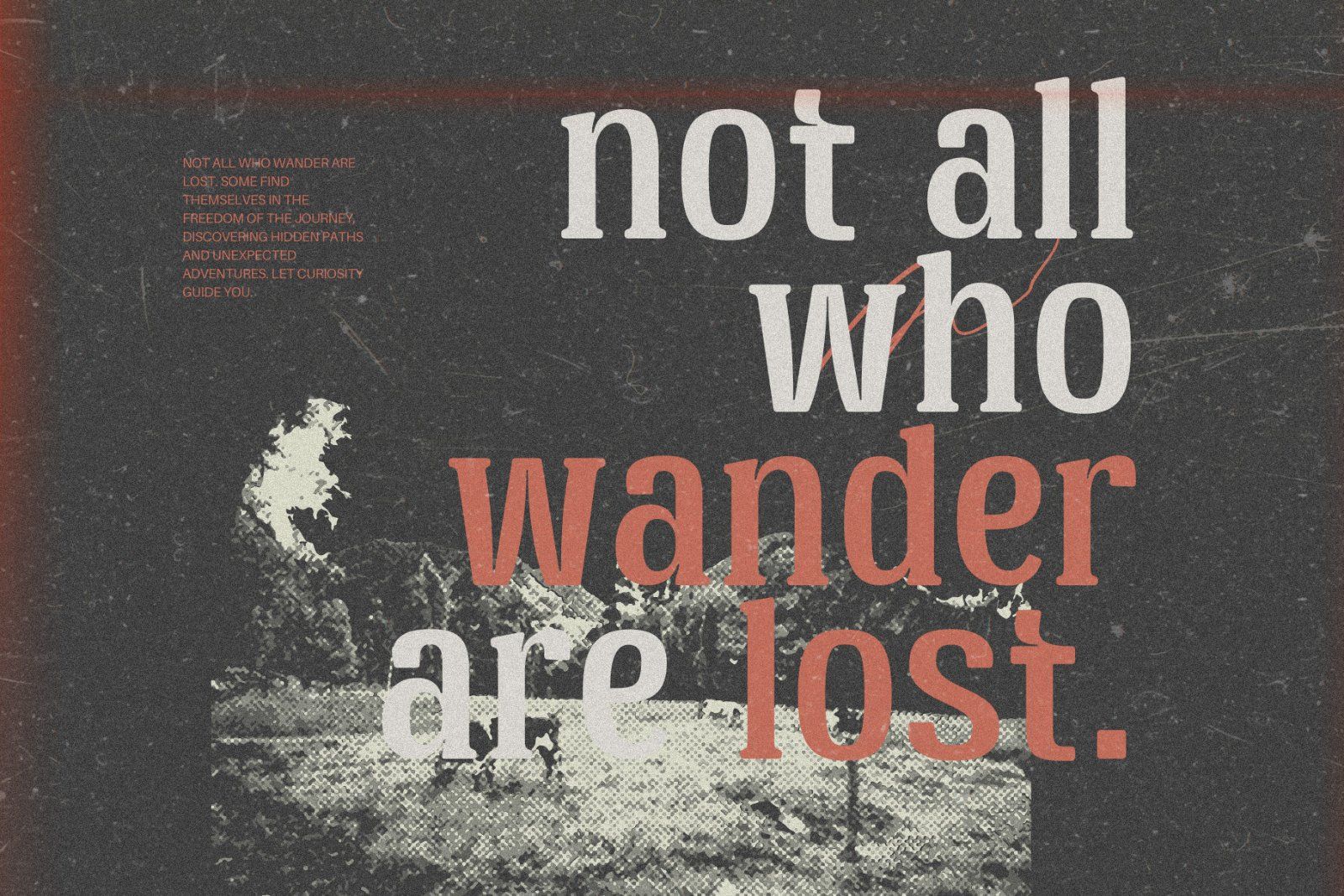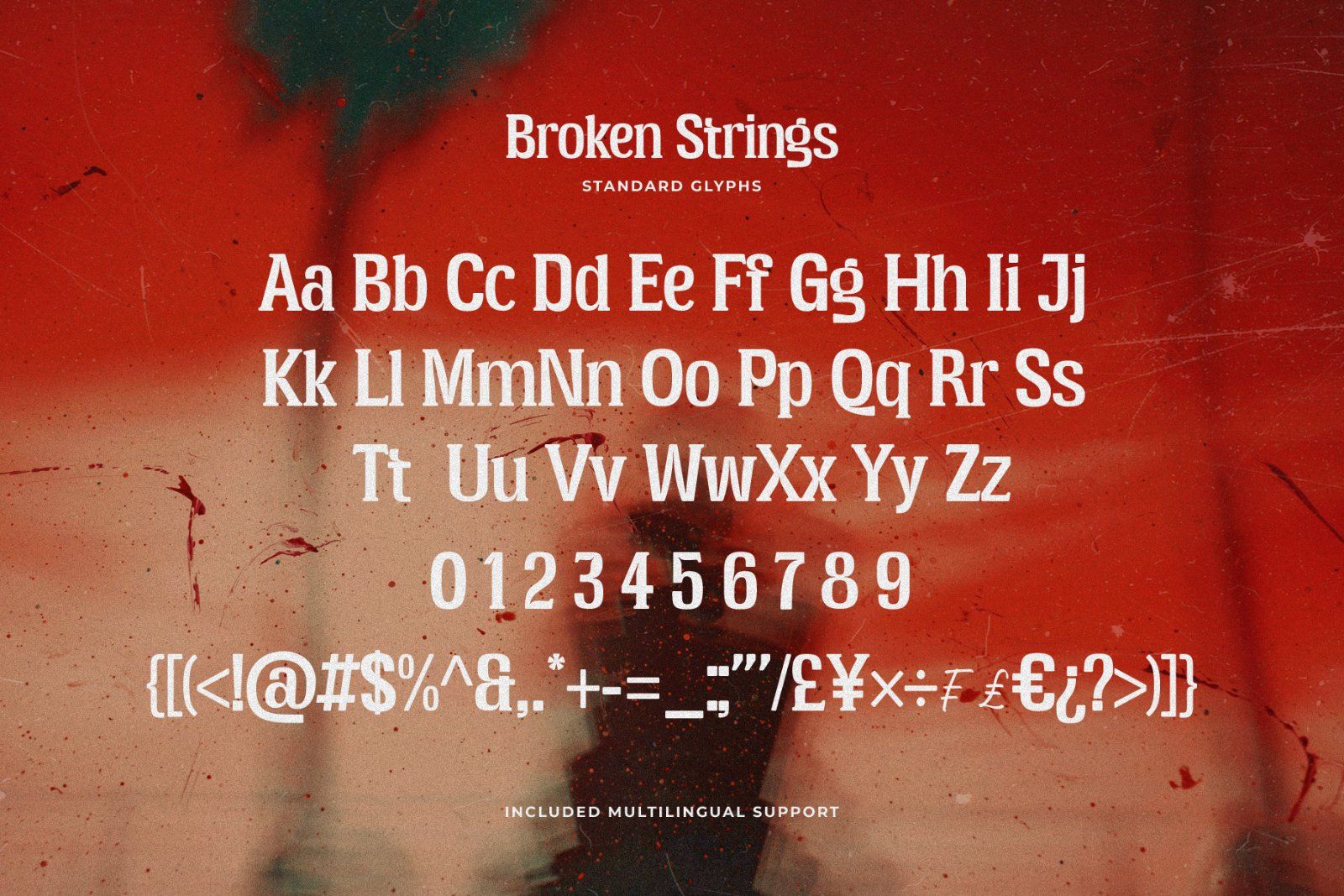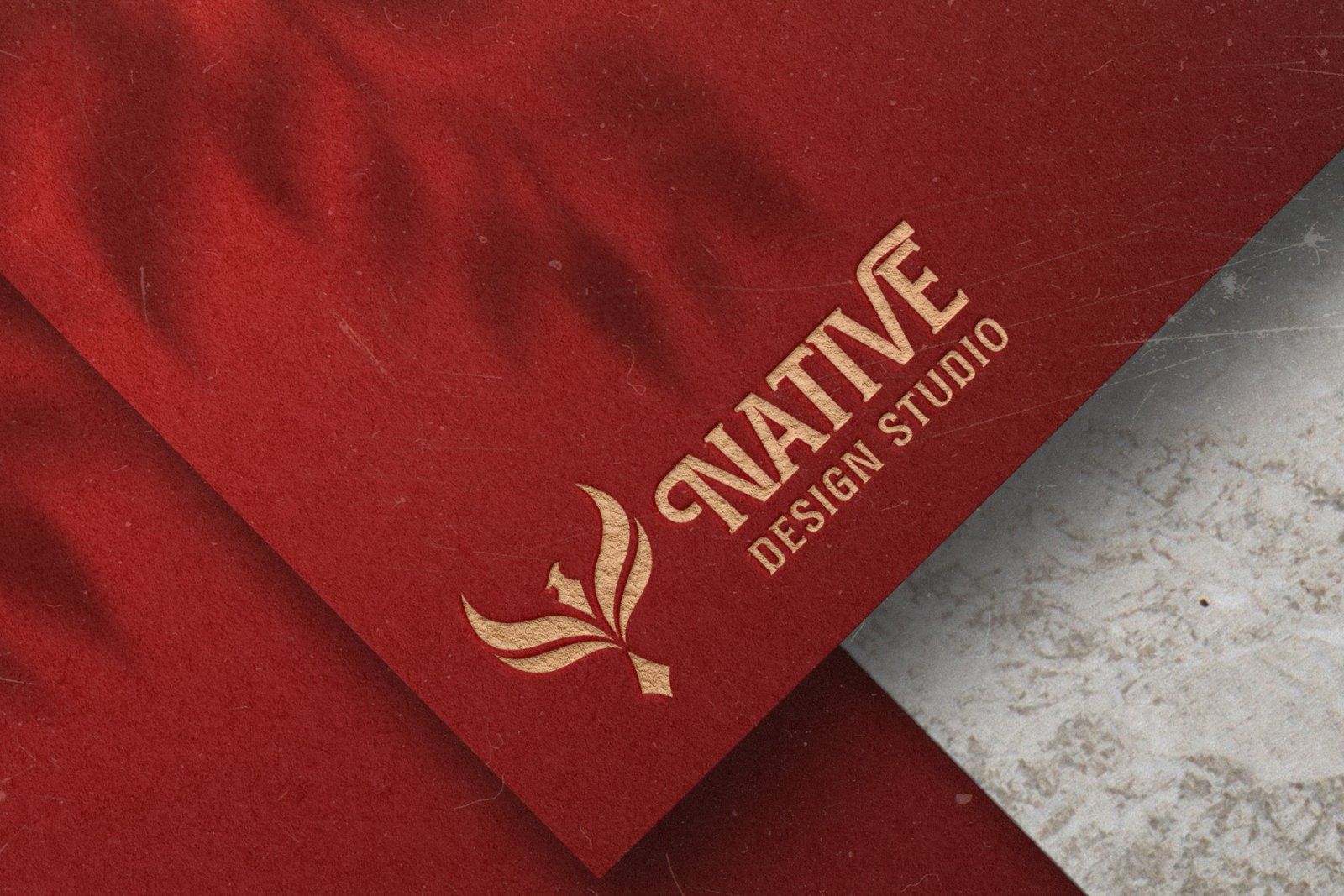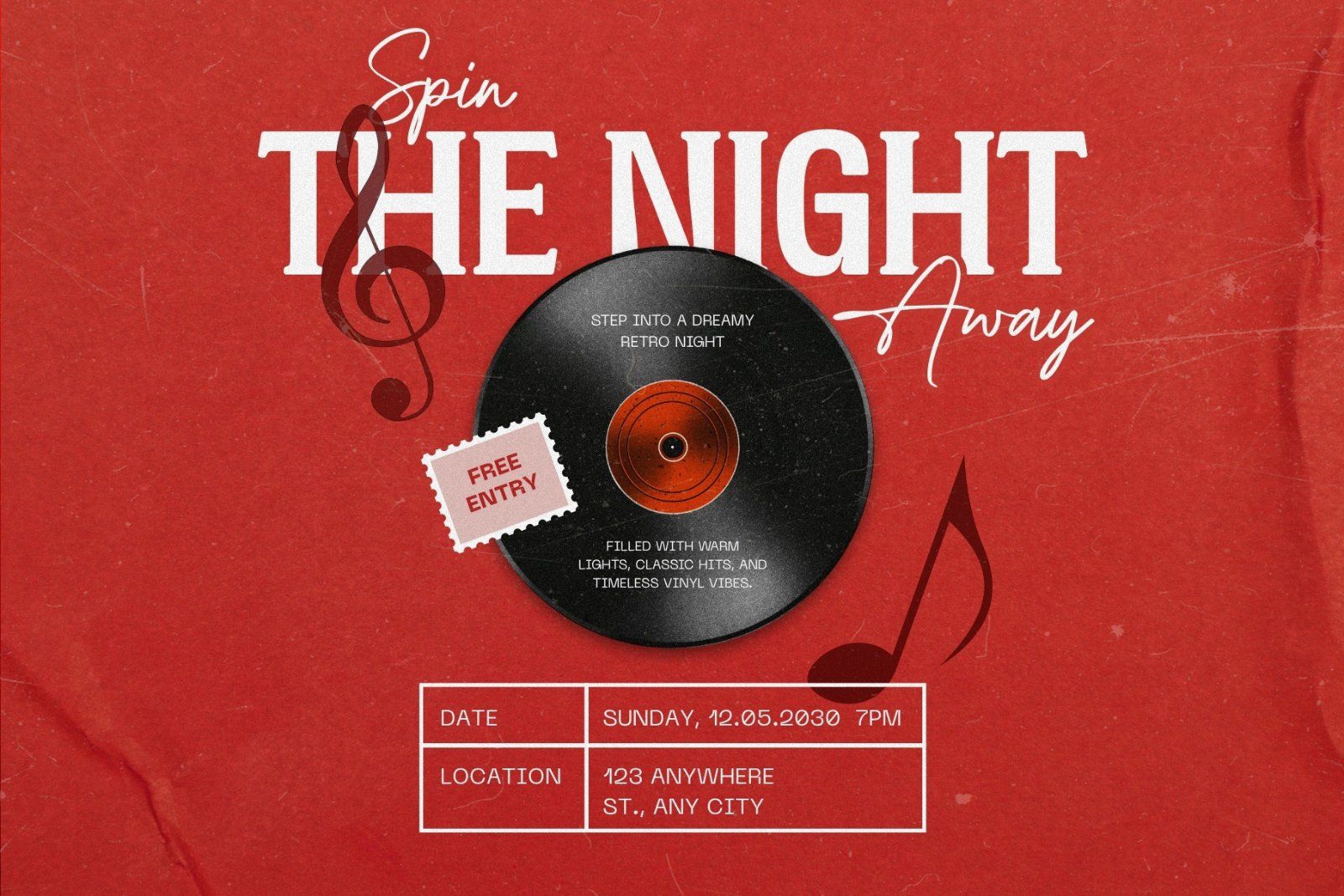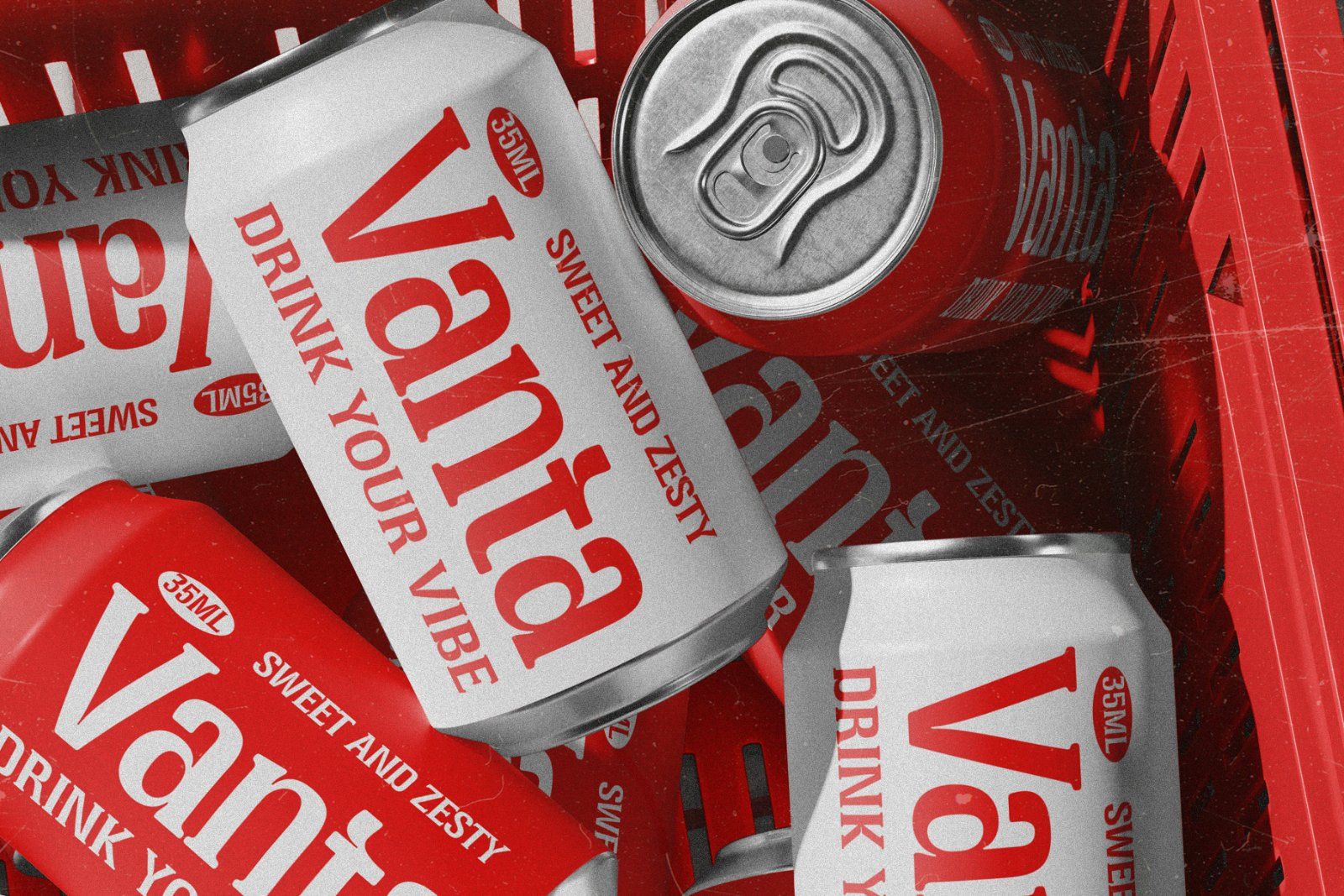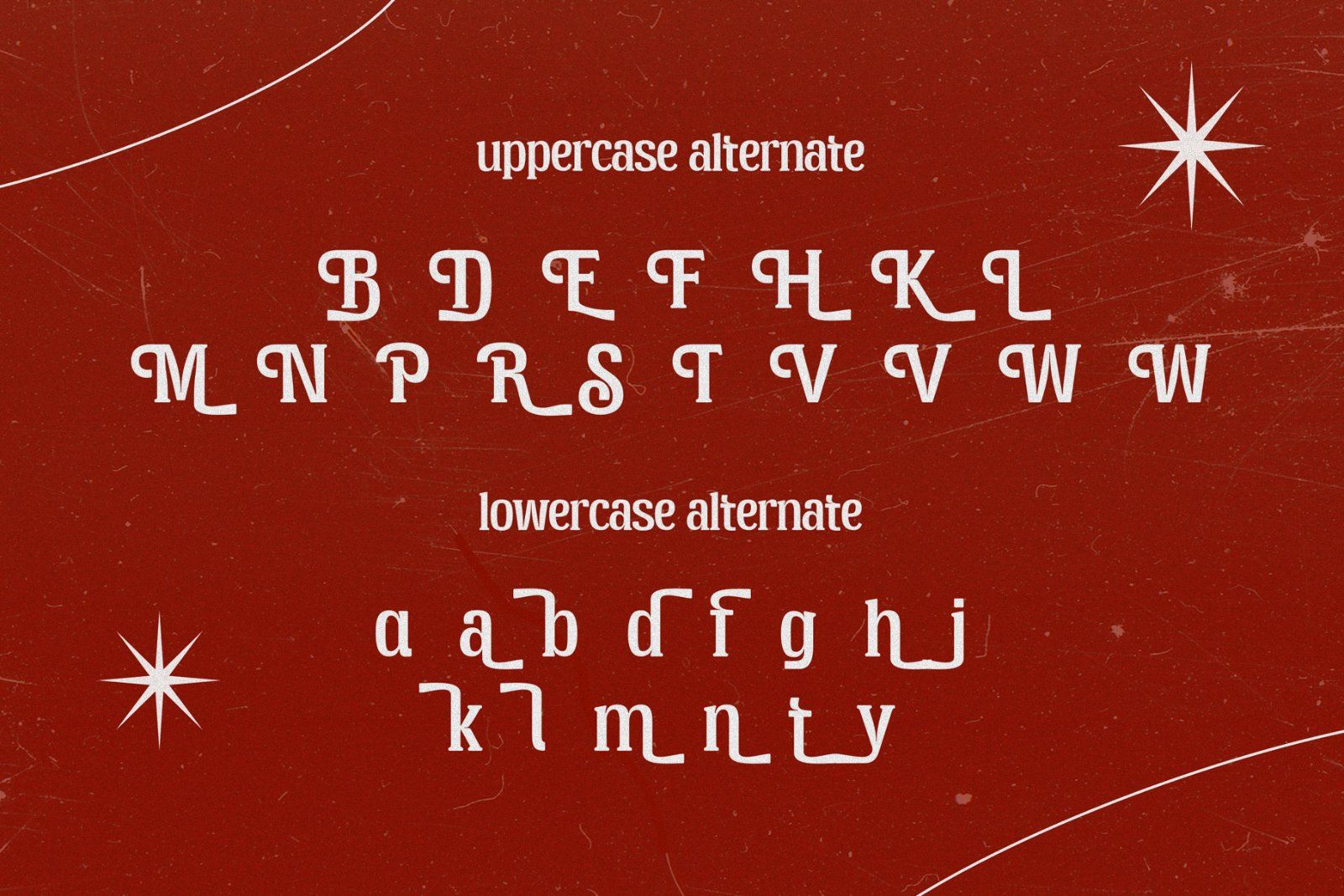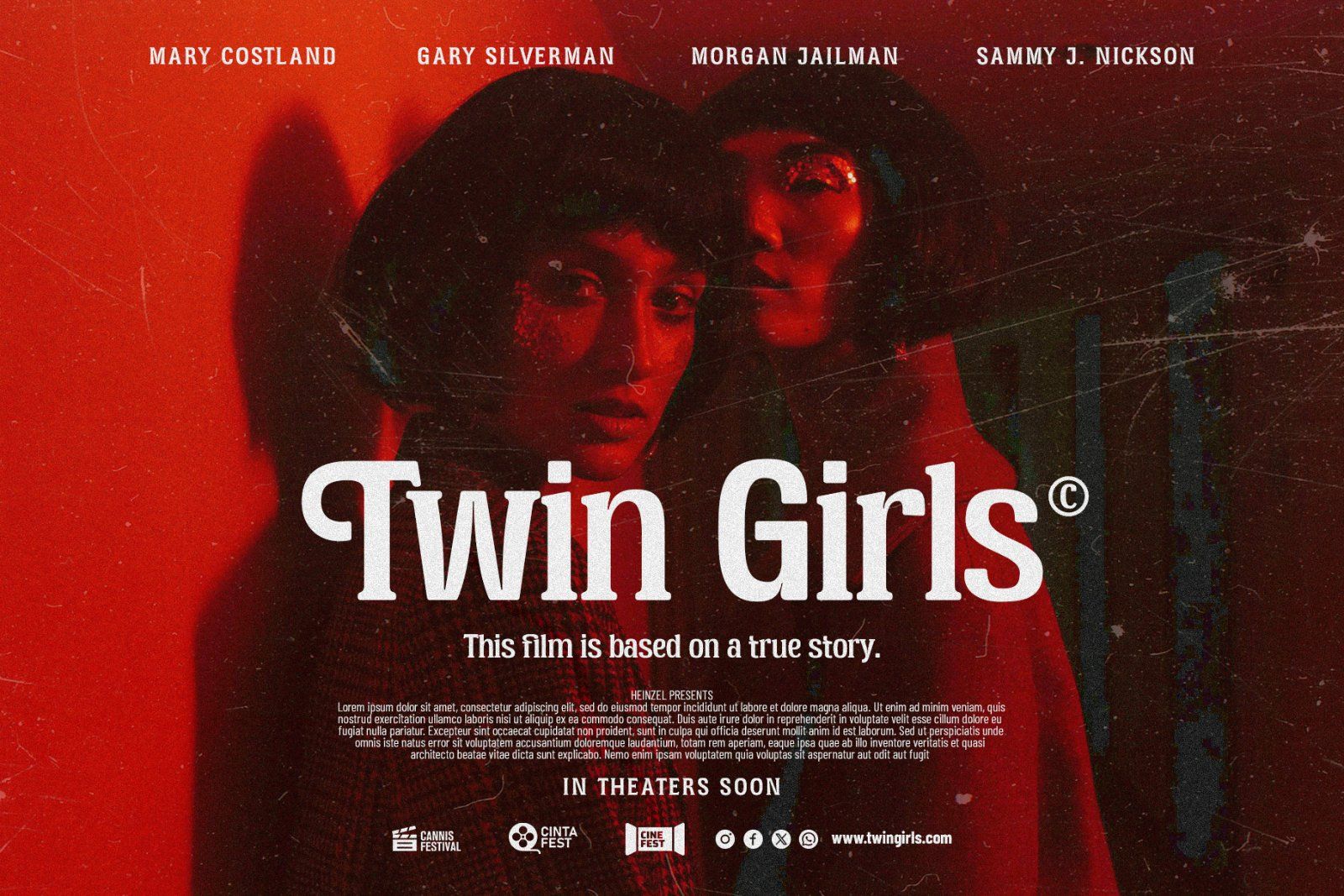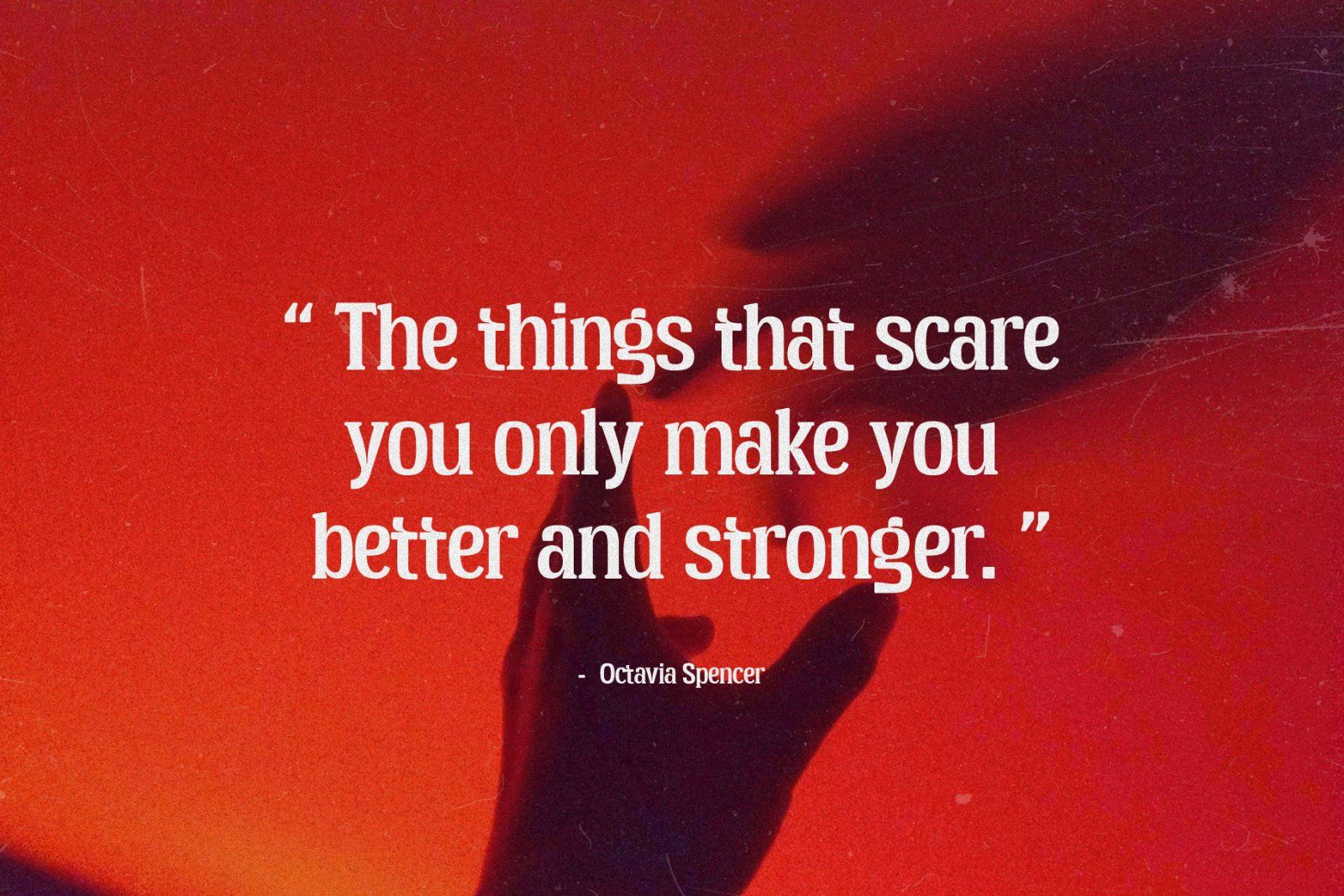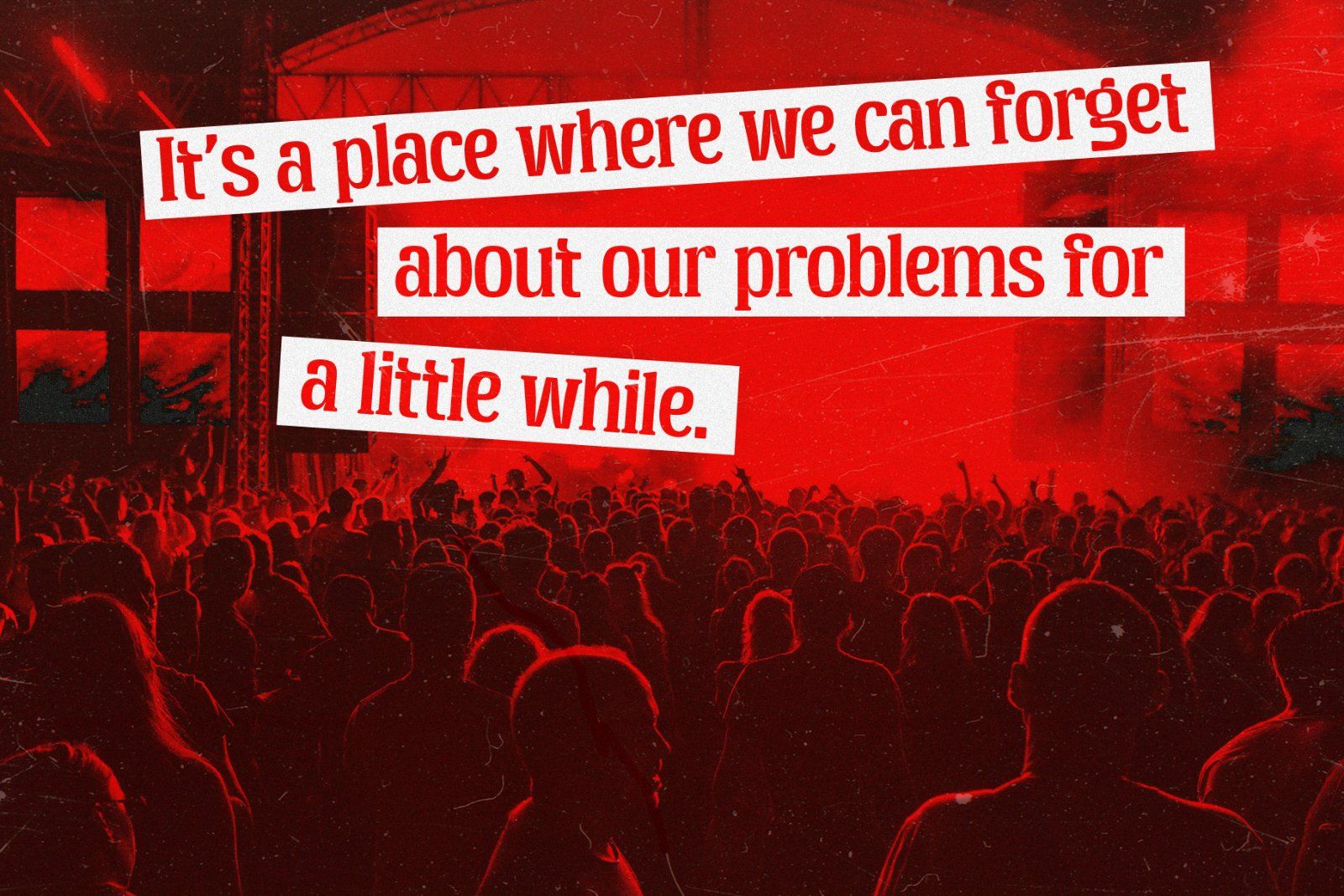
Broken Strings is a retro serif font inspired by vintage typography, classic print aesthetics, and nostalgic poster design. With its strong, expressive letterforms, distinctive serif details, and confident proportions, this typeface brings a timeless retro character to modern creative projects.
Designed to make an impact, Broken Strings works beautifully for logos, branding, posters, album covers, packaging, editorial designs, headlines, apparel, labels, and vintage-inspired graphics. Its bold display style gives typography a strong visual presence while maintaining a classic and sophisticated feel.
Broken Strings includes 500+ glyphs and multilingual support, making it a versatile choice for designers looking to create authentic retro typography with a contemporary touch.